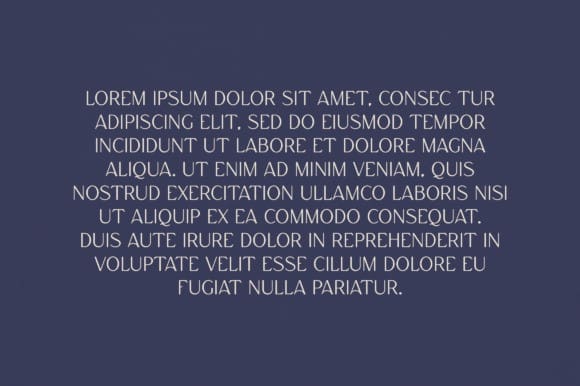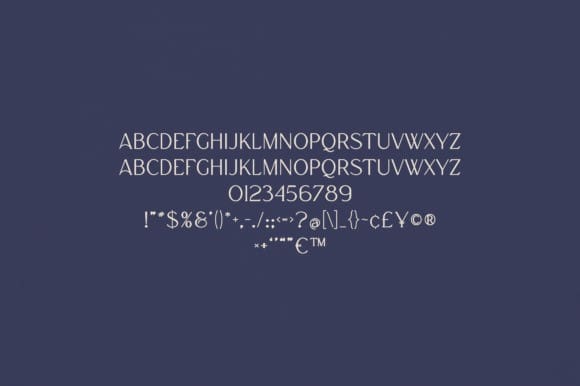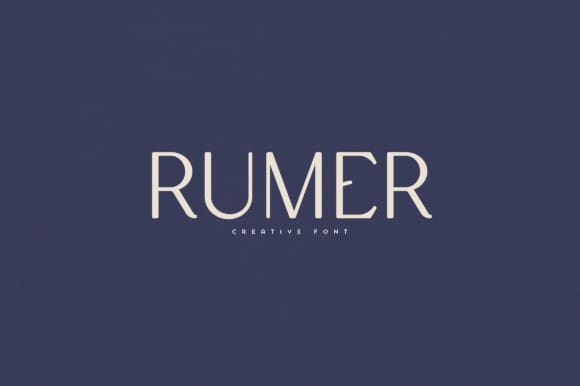
Rumer Font
Rumer Font is an elegant and versatile font that will make your typography truly unique! It will enchant every logo, branding, headline, or plain text!